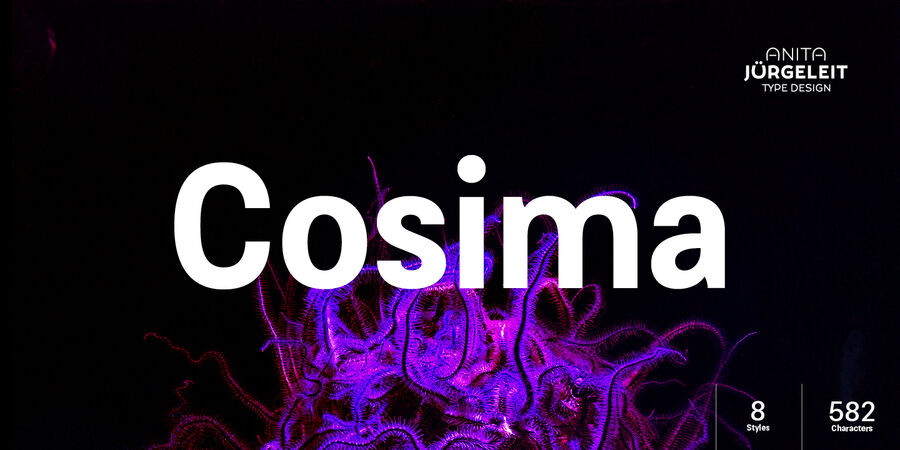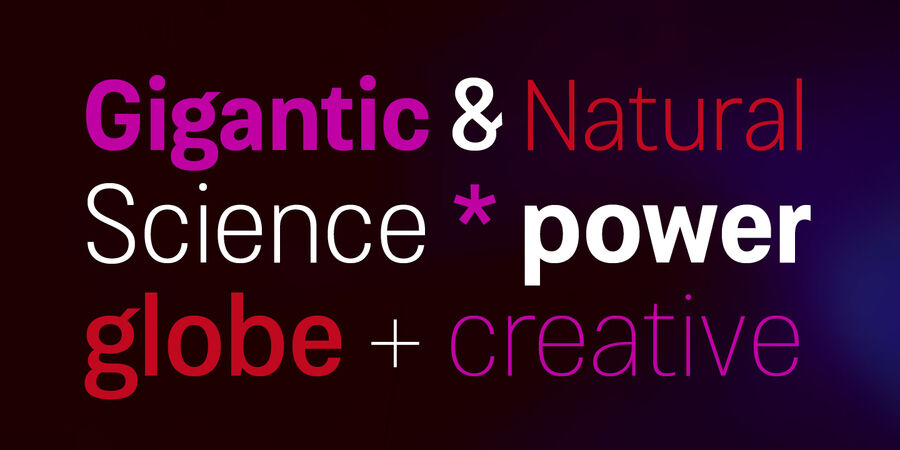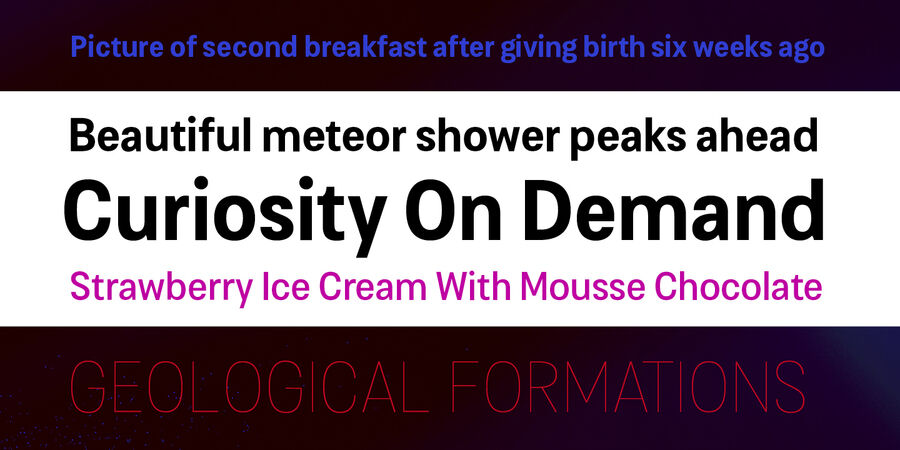
Typeface Cosima is an effective workhorse with a touch of subtle elegance, designed by Anita Jürgeleit.
Launching your new brand or creating a new user interface for your mobile devices – selecting characteristic typeface for a brand and advertising is just as important as using the right font for app design, magazine or editorial – typography is always the essential part.
Cosima’s vertically and horizontally cut stems make it appear strong and steady. The narrowed characters and expanded lowercase heights have an elegant impact on the text settings and show joyful designed details in larger sizes.
The typeface was designed by Anita Jürgeleit in 2019.